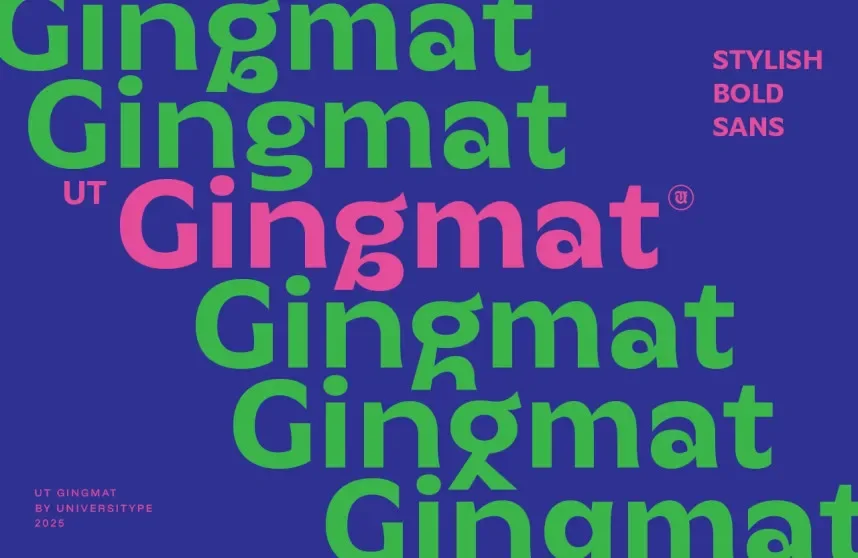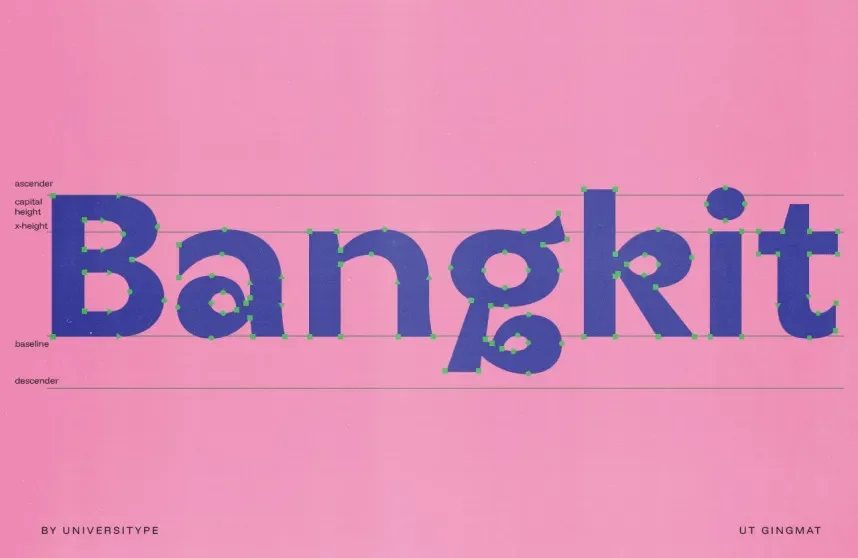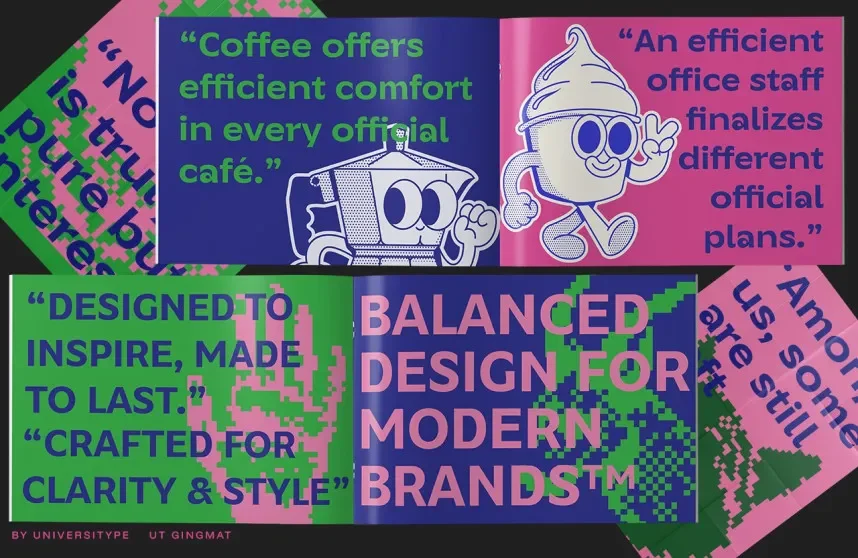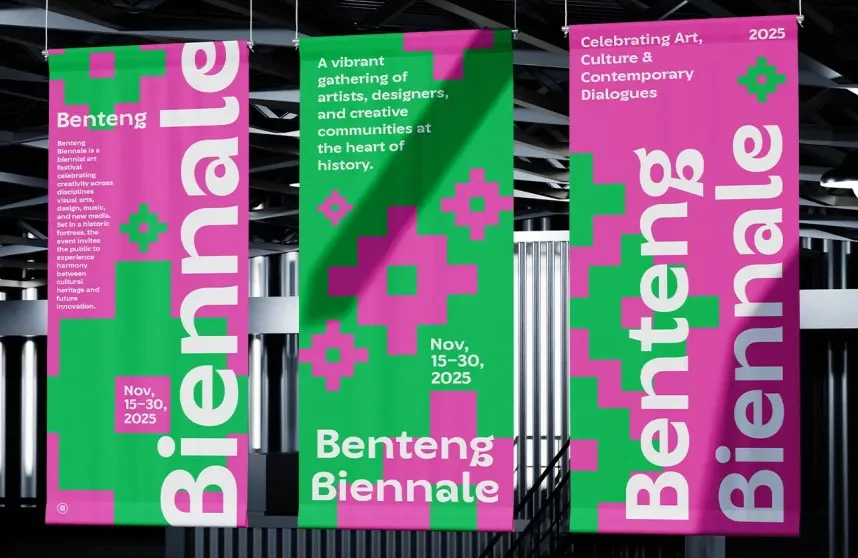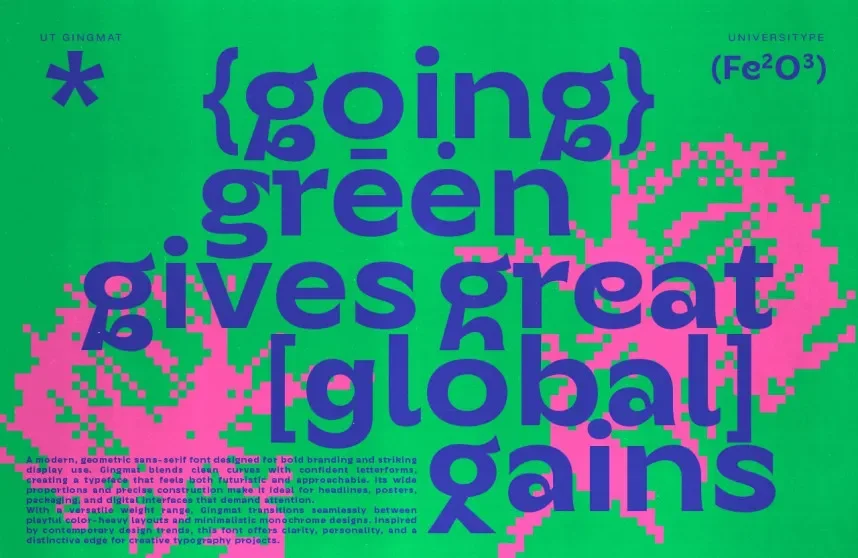
UT Gingmat Font is a display typeface designed for bold headlines, posters, and digital branding. Its unique letterforms help solve visibility and consistency challenges in creative layouts.
This font features thick strokes, clean terminals, and moderate spacing. Its design supports multiple weights and stylistic variations, making it versatile for logos, social media graphics, and UI elements. UT Gingmat provides a strong visual presence without sacrificing readability.